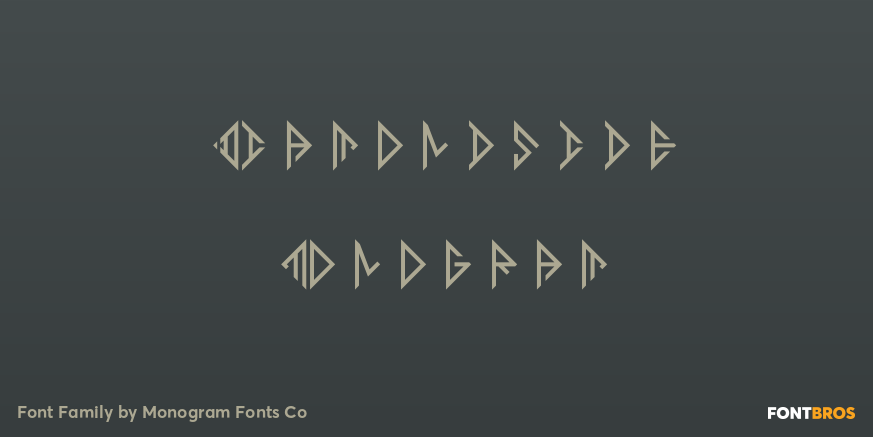
Diamondside Monogram
About Diamondside Monogram
Diamondside Monogram finds its historical influence in our diamond-shaped Moissanite Monogram, however more squared up in form. This modern interpretation adds layerable chromatic faceting to the style for an updated look. Diamondside Monogram is capable…